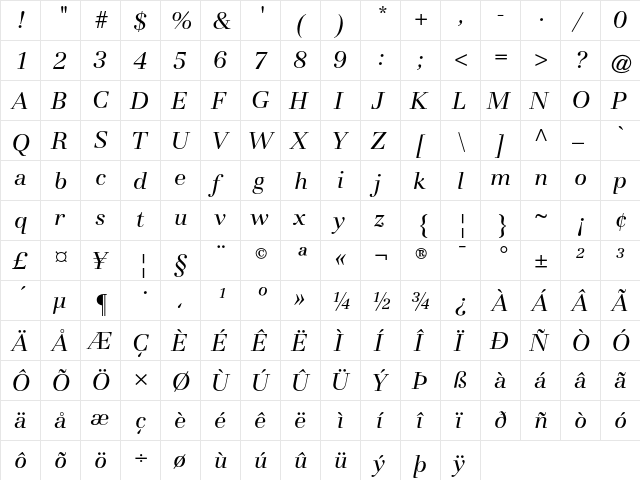
Basilia AT Italic
Design Context for Basilia AT Typeface
Basilia AT takes a measured approach to typography — its balanced proportions and neutral character make it a reliable workhorse for both digital and print work. Its italic angle brings a sense of urgency and motion to the letterforms.
Pro Tip: Use Basilia AT for emphasis, pull quotes, and subheadings where its slanted energy can add rhythm to the layout.